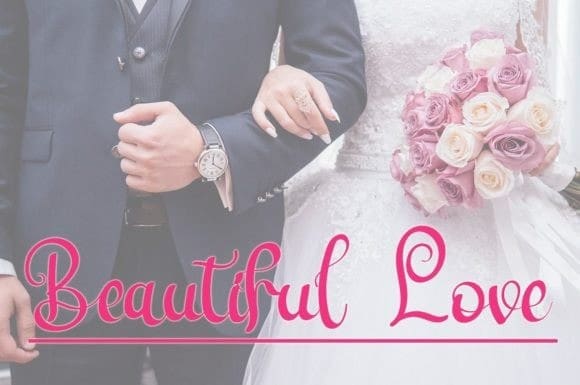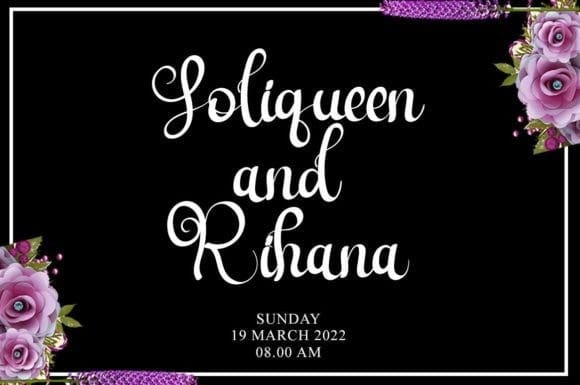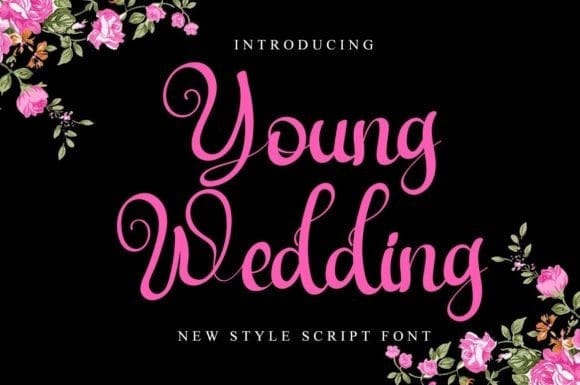
Young Wedding Font
Young Wedding Font is a beautiful and sweet font. It is fresh, clean, and elegant. This font will look amazing in a great amount of projects, both formal and informal. It will add an incredibly joyful touch to your designs.Fonts designed to simplify your design. By using this font, your business will look more beautiful